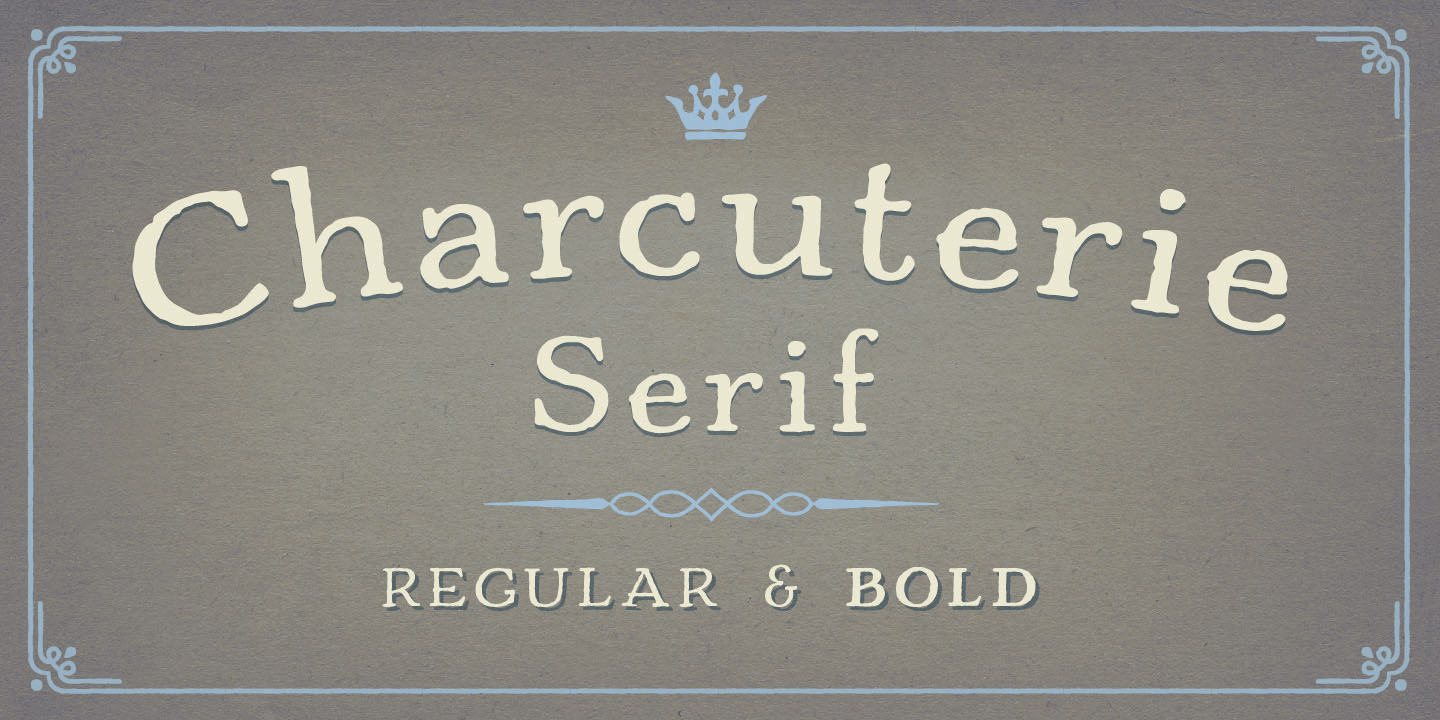
Charcuterie Serif
Charcuterie Serif is a display serif font family. This typeface has two styles and was published by Laura Worthington.
The family of Charcuterie is a bit reminiscent of early 1900s styling, not precisely Bauhaus or Art Deco, not a revival, but an imagined restoration based on memory, captured from novels and movies set in Paris, a modern echo of collections of impressions of a time when people strolled along and stopped to read a French bistro chalkboard menu drawn with letters that resemble Charcuterie.
A large and rare undertaking, Charcuterie is a family of ten distinct yet related typefaces, many of which have their own font families, and three decorative/ornamental typefaces.
While most of the Charcuterie typefaces are outfitted with a standard character set, Charcuterie Engraved features 135 swash alternates and Charcuterie Cursive boasts 275.
Charcuterie Frames offers a broad and endless approach to creating frames of any width, height and style.
Featuring 60 corner elements and 20 top, bottom and side pieces along with a detailed User’s Guide on how to construct the frames.
Charcuterie Catchwords features nine different styles for a total of 82 glyphs.
Charcuterie Ornaments is very practical and features 100 glyphs a vast array of arrows, brackets, rules, icons, ribbons and more.
This ambitious, yet accessible, set offers a virtually endless series of combinations, allowing each designer to form a tasty platter of ingredients, one that is uniquely theirs, for each project.
A large and rare undertaking, Charcuterie is a family of ten distinct yet related typefaces, many of which have their own font families, and three decorative/ornamental typefaces.
Shown here, is Charcuterie Serif. Be sure to take a look at the other offerings within the Charcuterie Family: